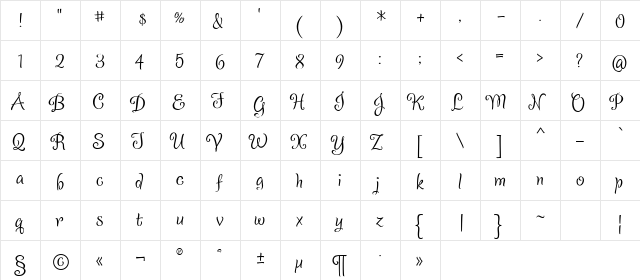
Sladkoeshka Regular
| Foundry | Gophmann AL |
Design Context for Sladkoeshka Typeface
Sladkoeshka is a composed and adaptable typeface that performs quietly and consistently across a wide range of design contexts.